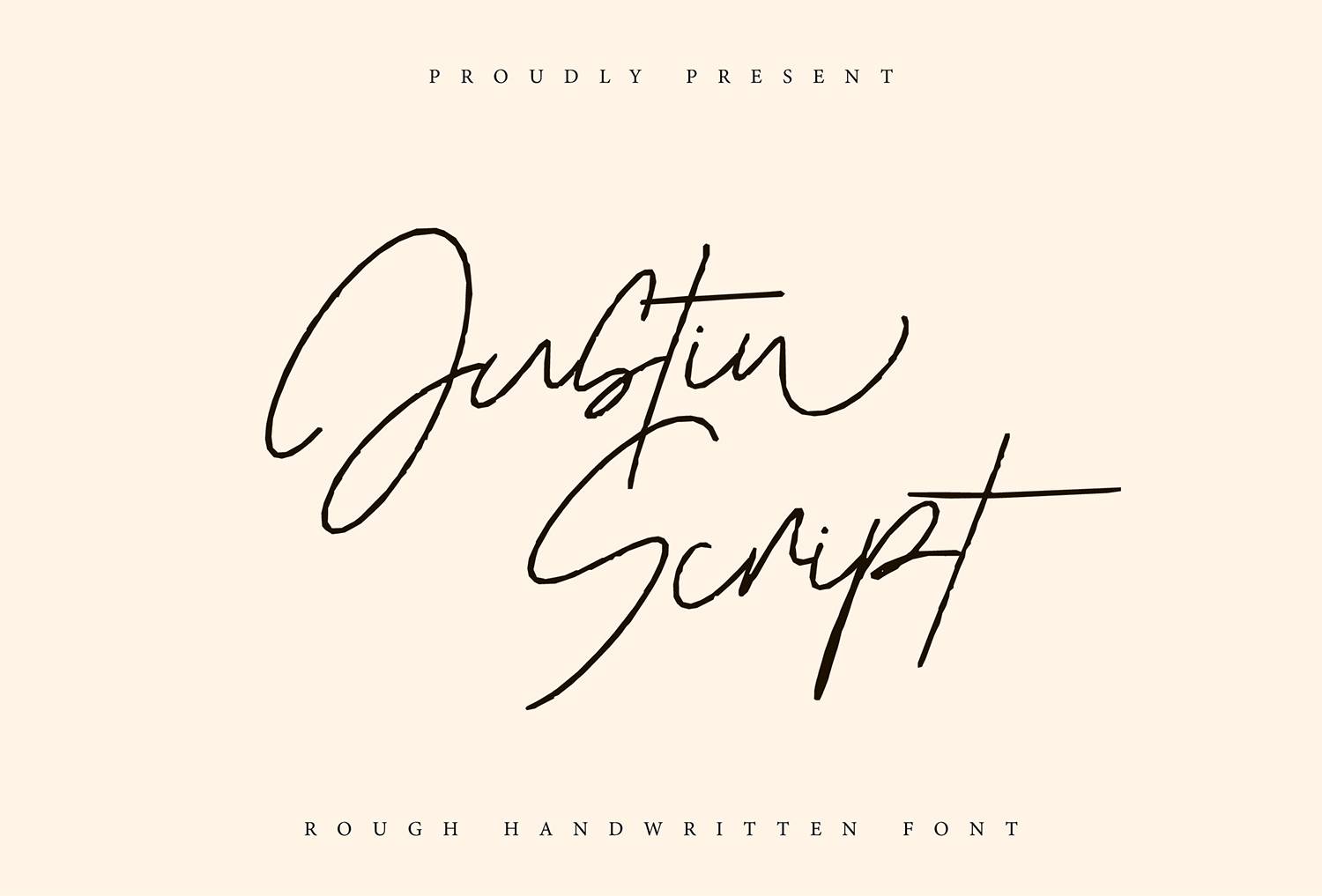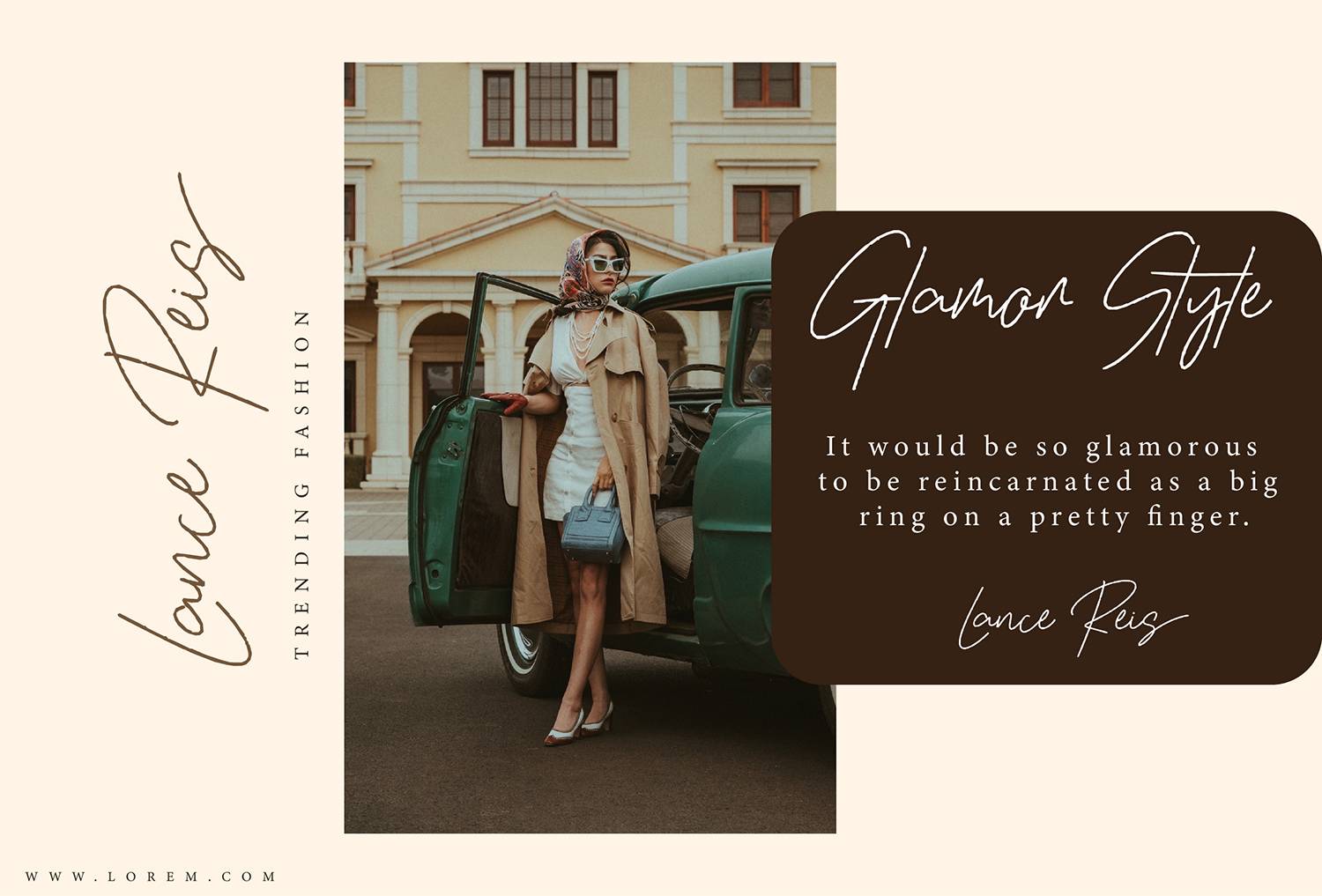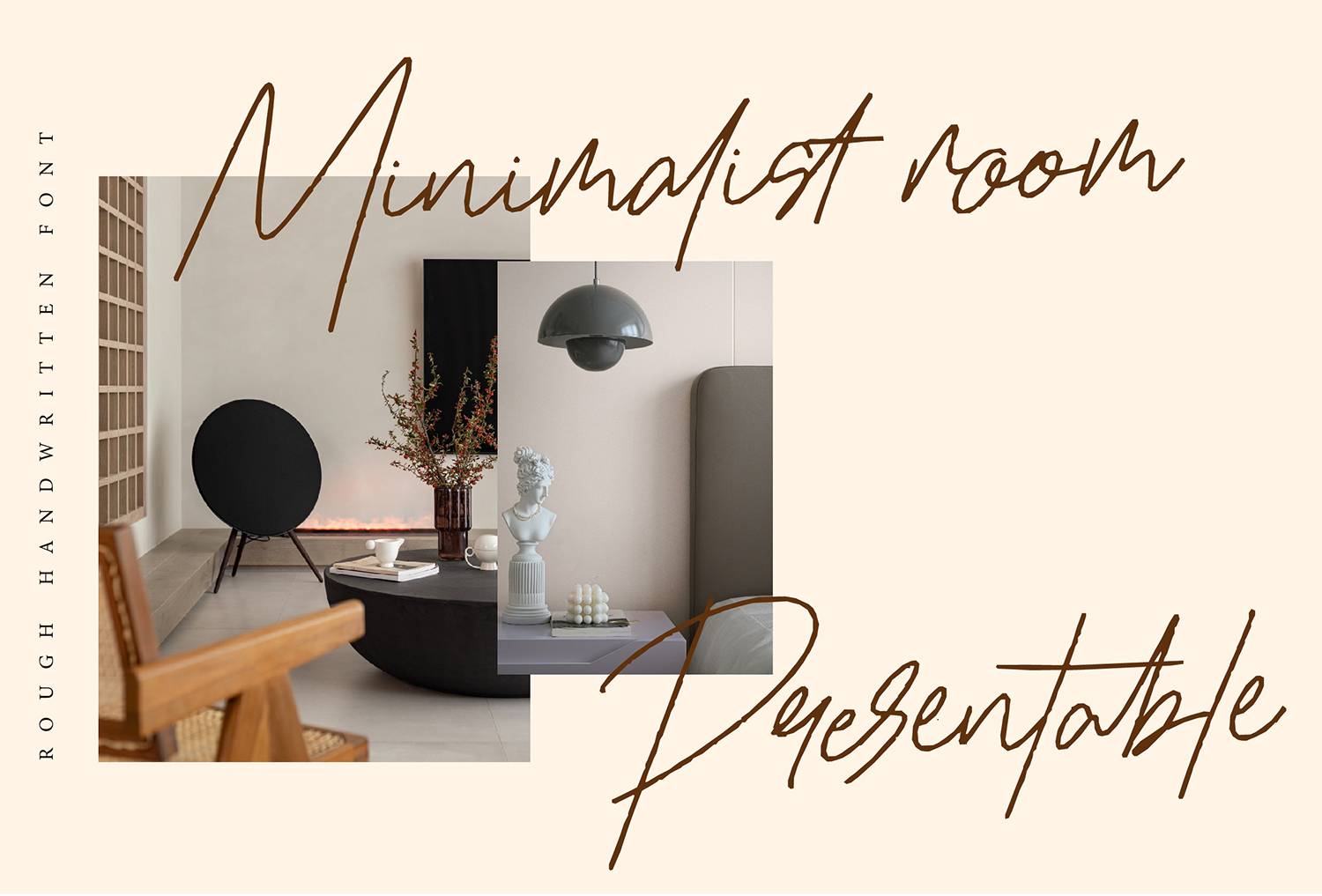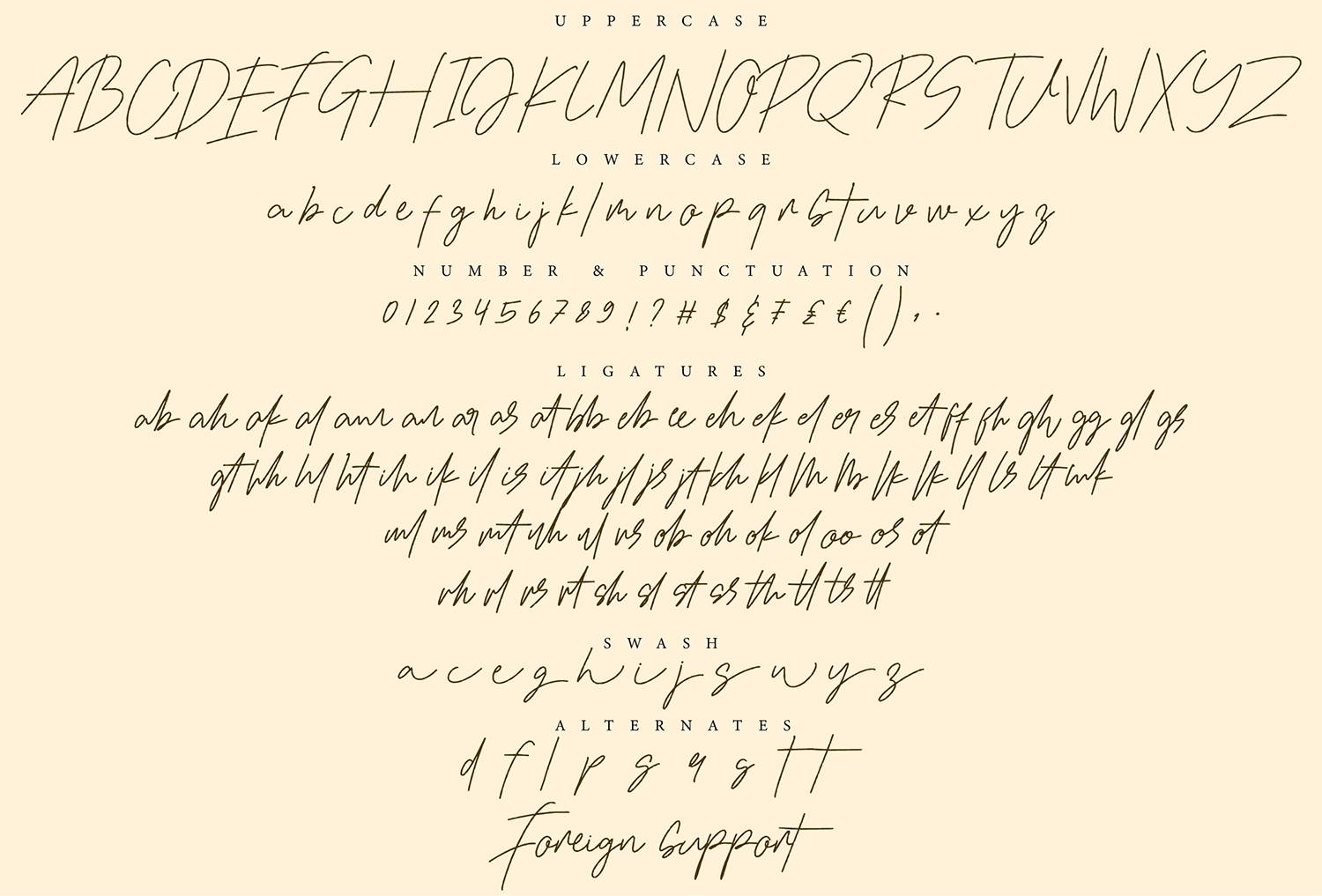
Justin Script Font is a delicate, handwritten script with a natural, airy feel, characterized by its slender, flowing lines and slightly uneven strokes that mimic authentic penmanship. Its light weight and tall x-height lend an elegant, personal touch ideal for invitations, branding, and creative projects that seek to convey warmth and individuality. This font works beautifully in contexts where a casual yet refined handwritten style is desired, adding a sense of intimacy and sophistication.
Justin Script Font
About Justin Script Font
| Font family | Justin Script Font |
| Designer | Akhmad riyan danuarta |